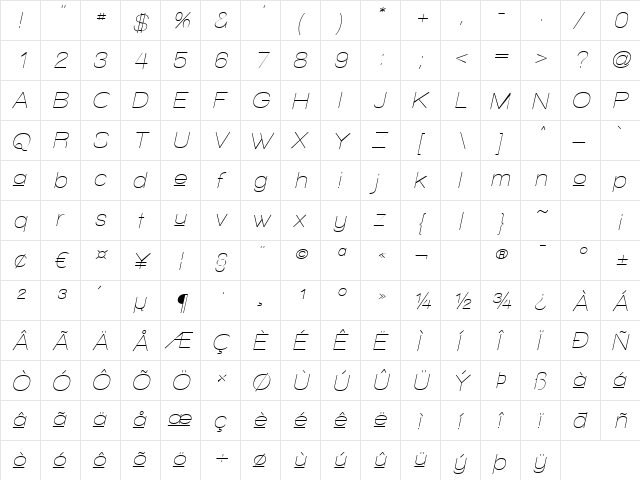
Walkway Upper Oblique Regular
Design Context for Walkway Upper Oblique Typeface
Walkway Upper Oblique is a composed and adaptable typeface that performs quietly and consistently across a wide range of design contexts. The dynamic lean of this cut emphasises speed and emphasis in any layout.
Pro Tip: Try Walkway Upper Oblique for annotation and caption copy alongside an upright companion — the contrast in angle creates a dynamic but ordered typographic system.